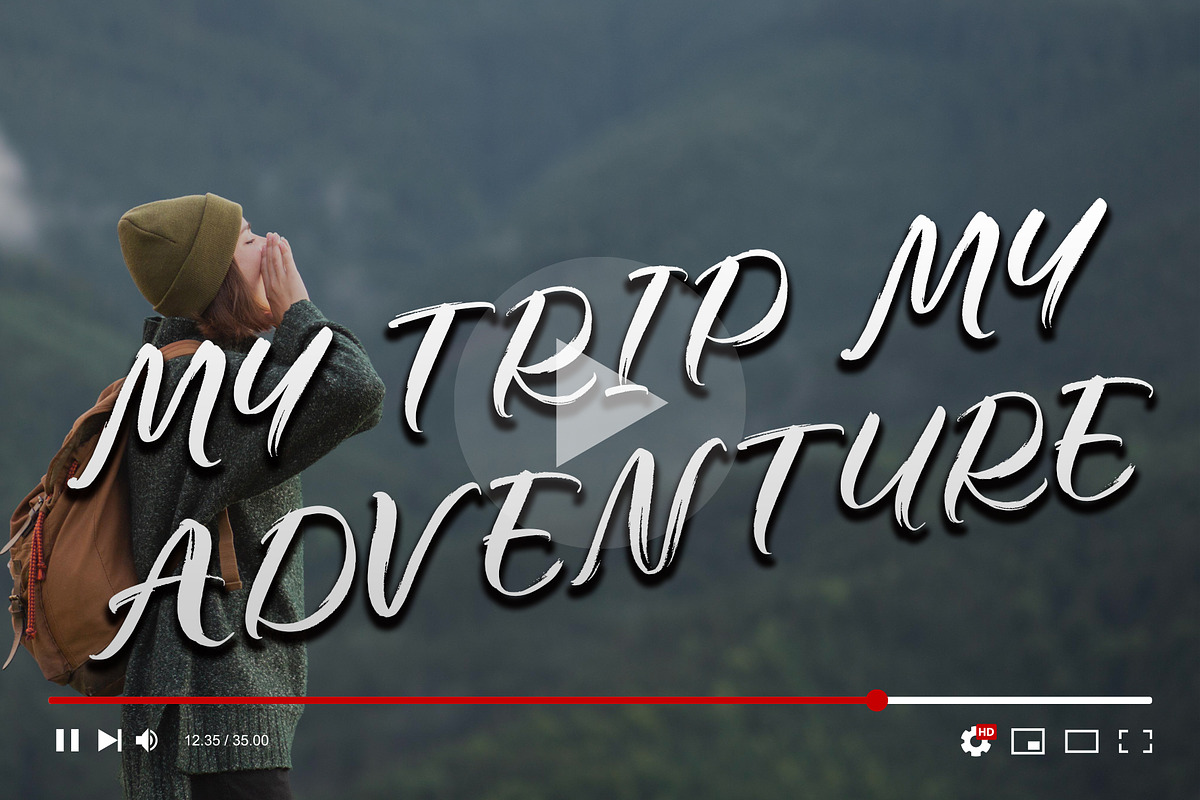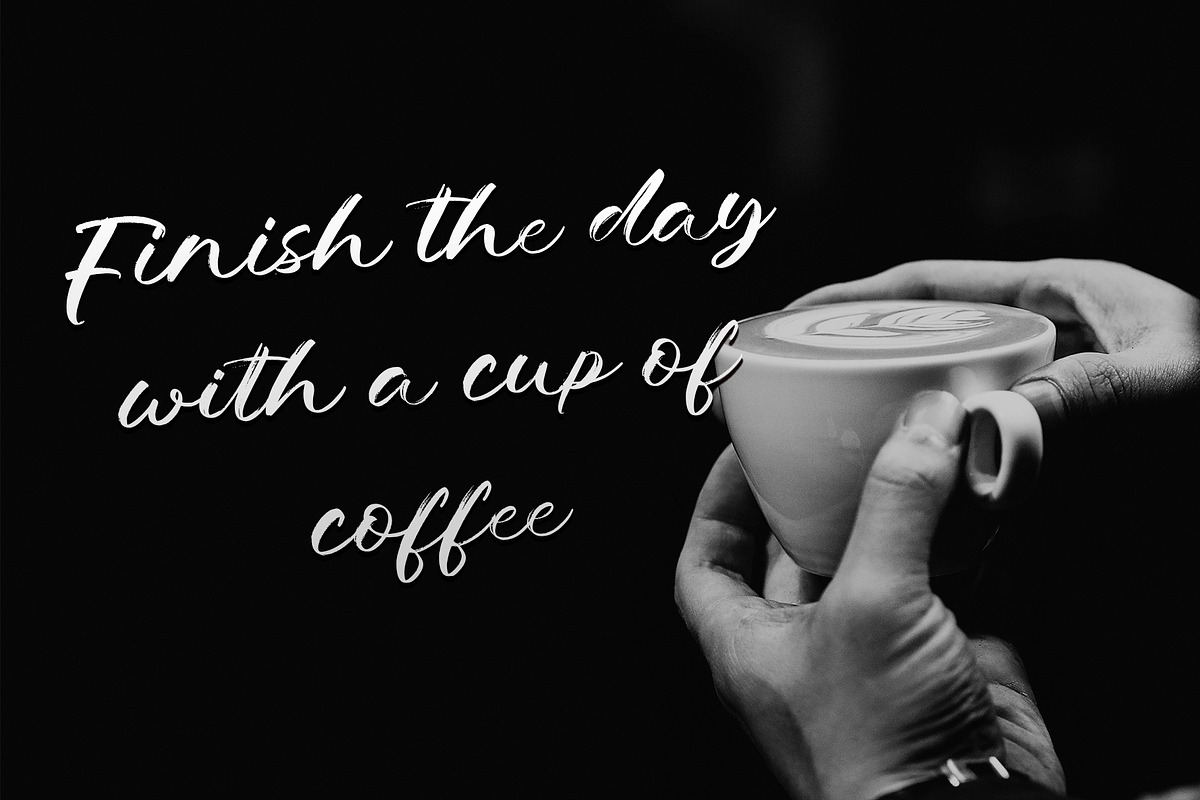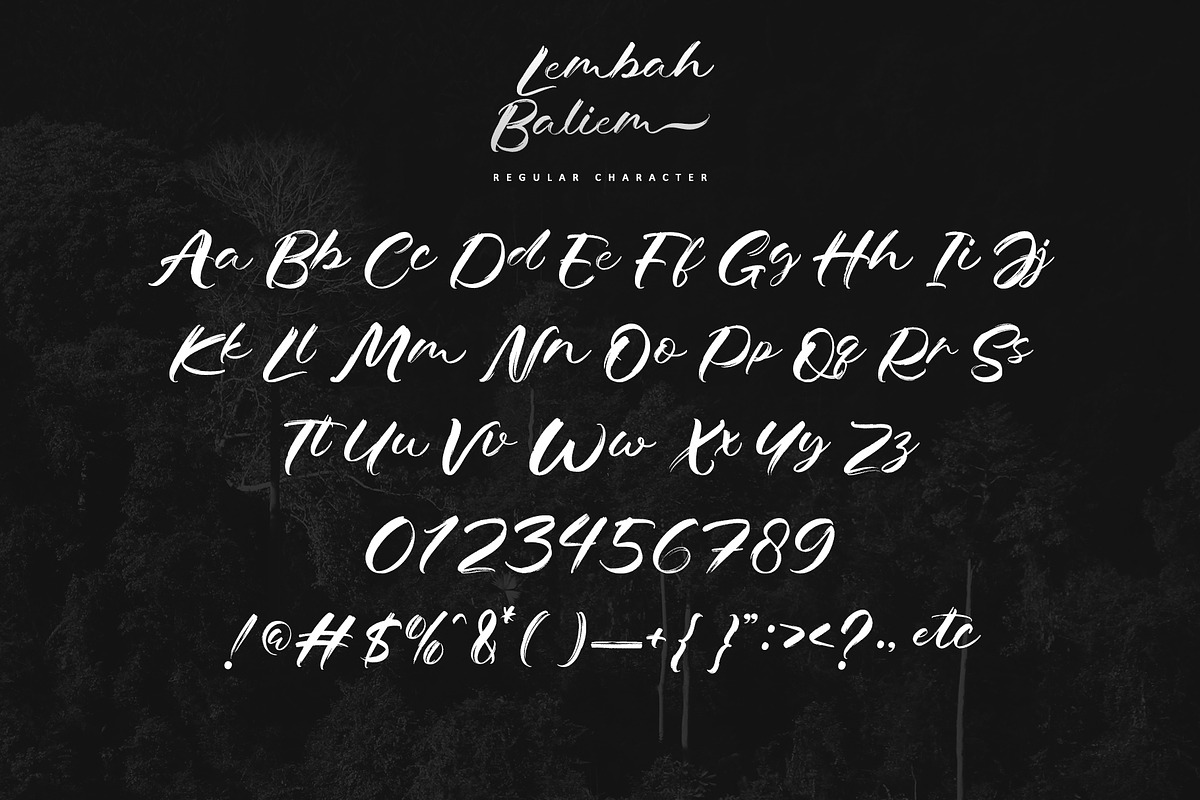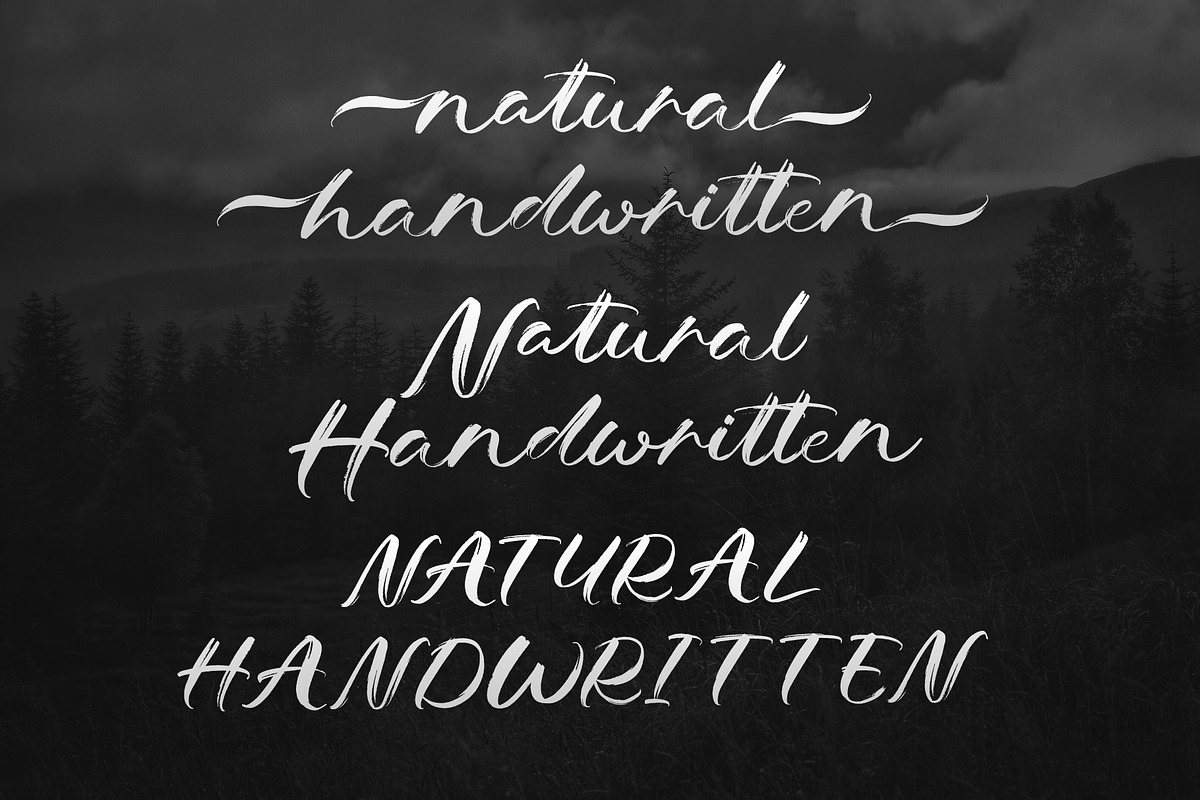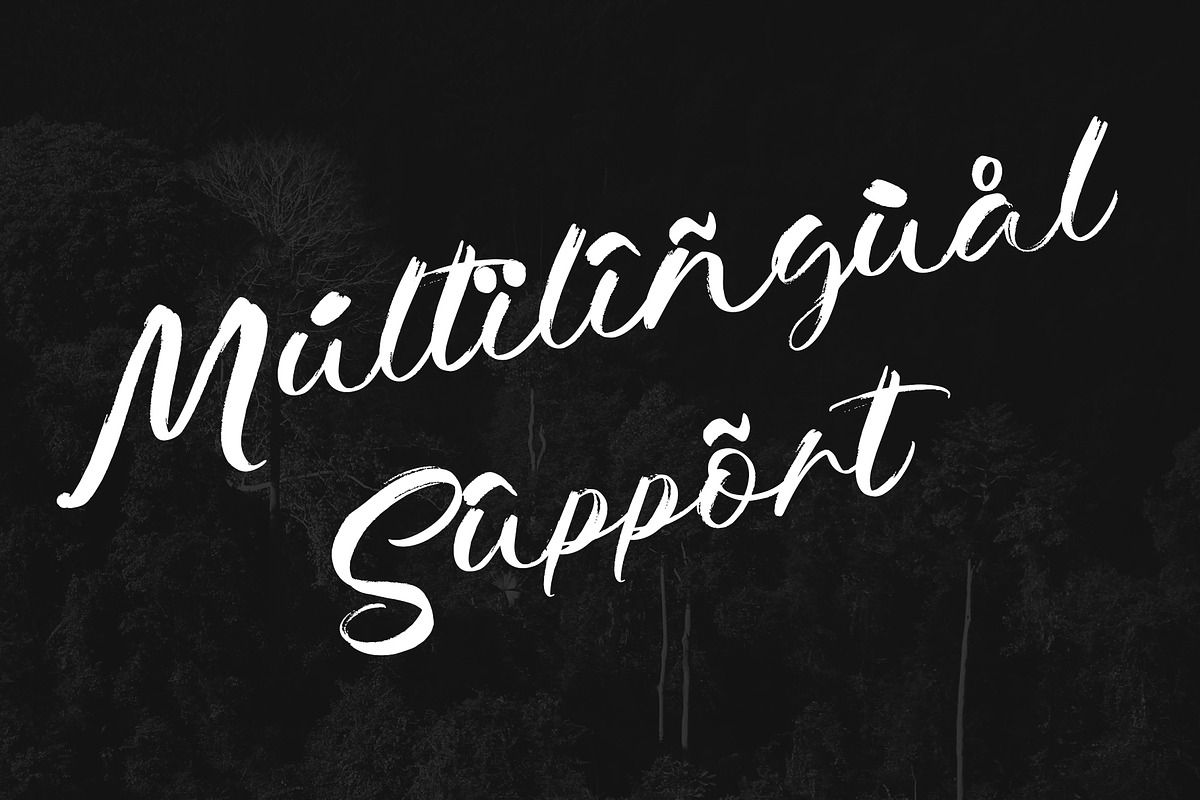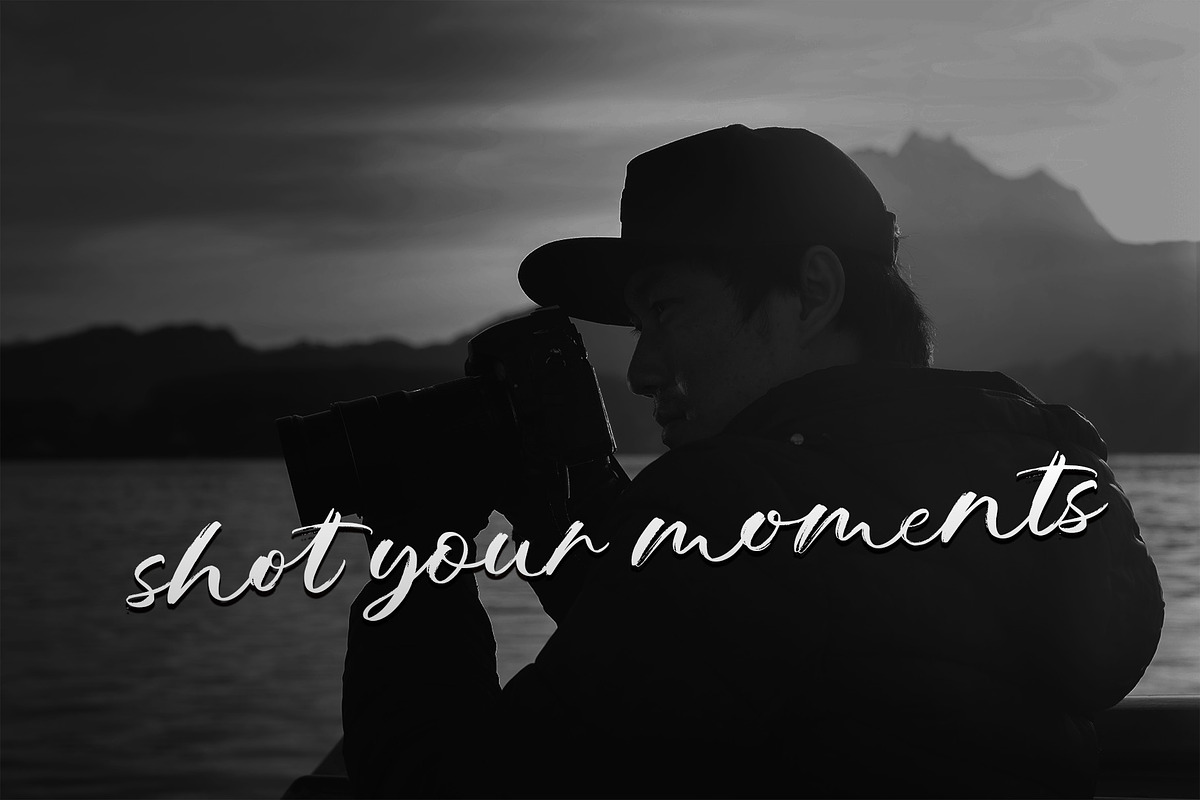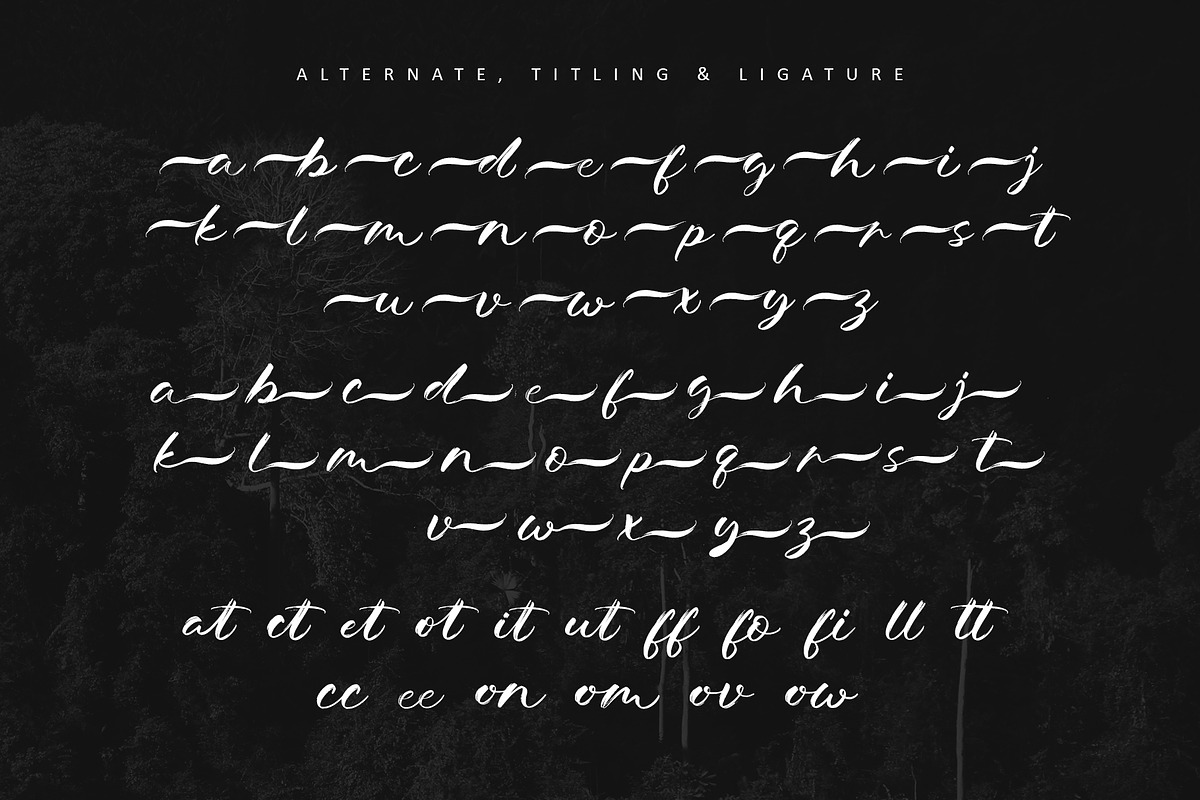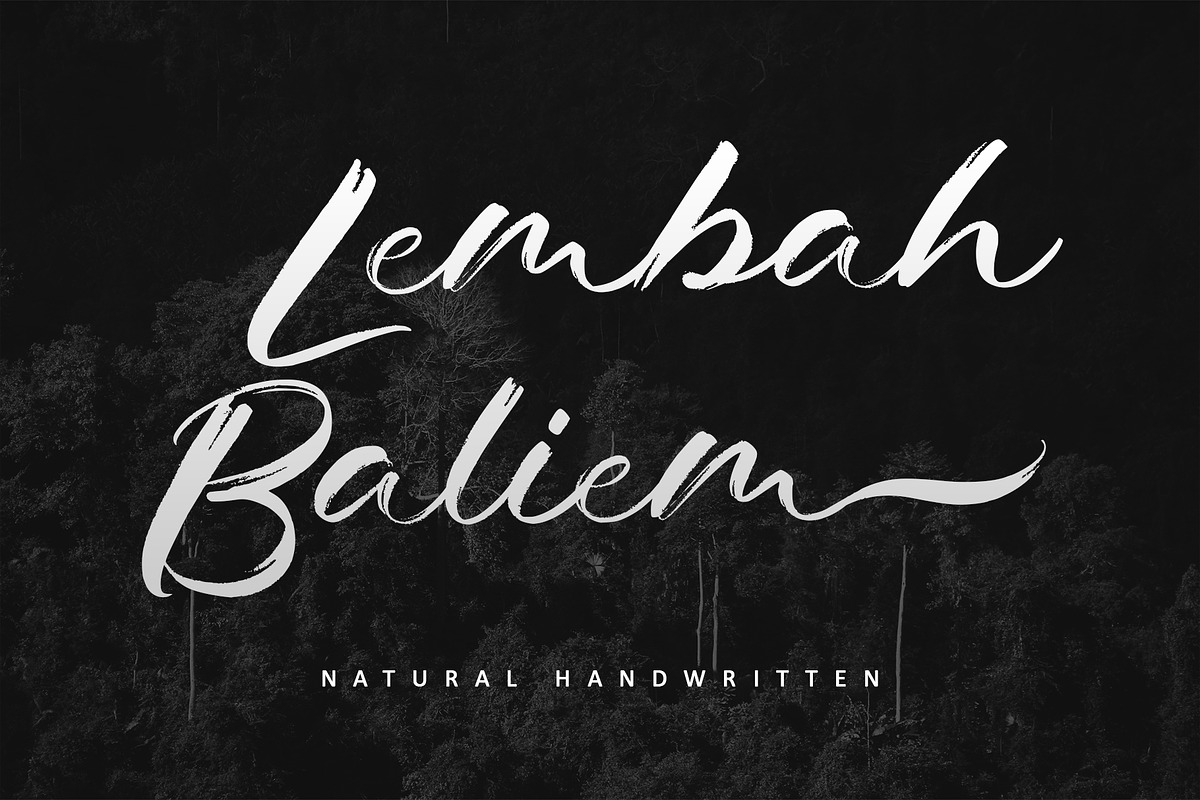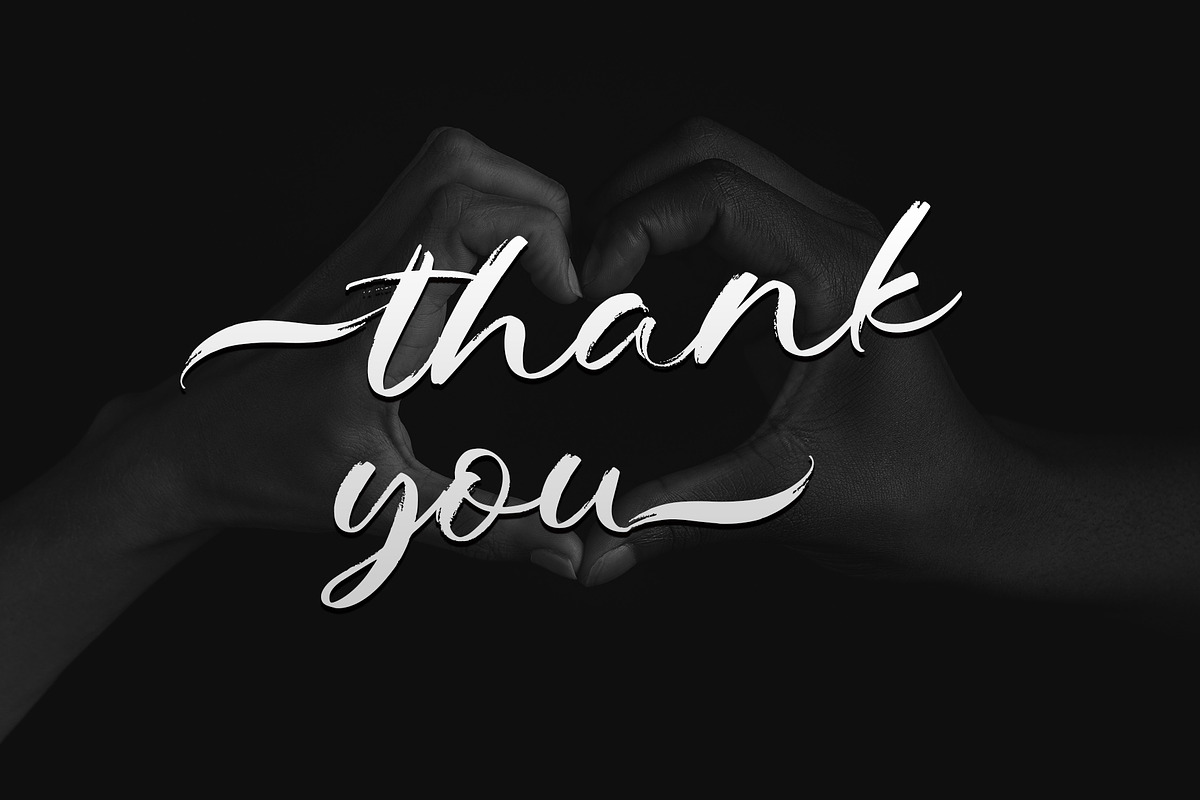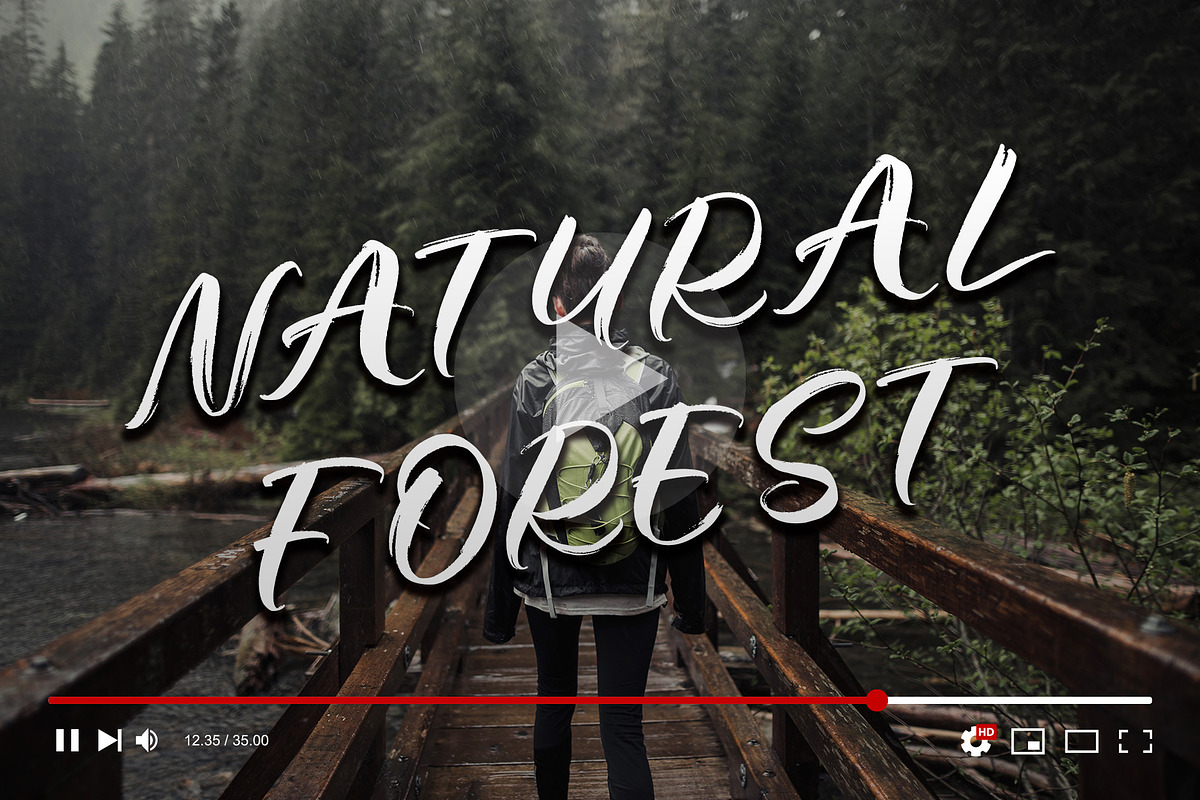
Lembah Baliem
Introducing Lembah Baliem, an authentic brush script font that infuses your designs with raw energy and dynamic charm. With its bold strokes and natural brush texture, this font is designed to make a striking statement in logos, posters, packaging, and various creative projects. Its vivid appearance and smooth flow make it the perfect choice for conveying a strong and stylish impression. PUA encoding ensures effortless access to all the expressive glyphs and swashes. Elevate your projects with Lembah Baliem, a font that seamlessly blends vigor and character into your artistic endeavors.
- Support multilingual; ä ö ü Ä Ö Ü ß ¿ ¡
- lowercase and uppercase letters
- Ligature, alternate dan swash